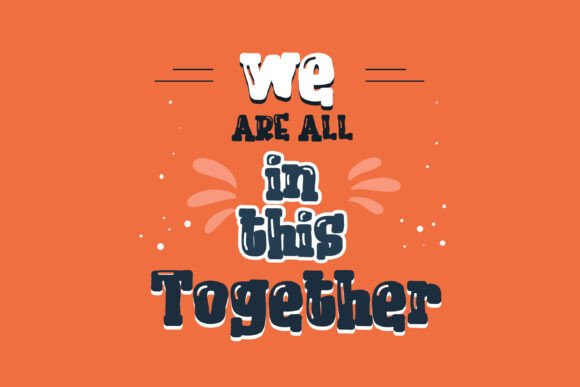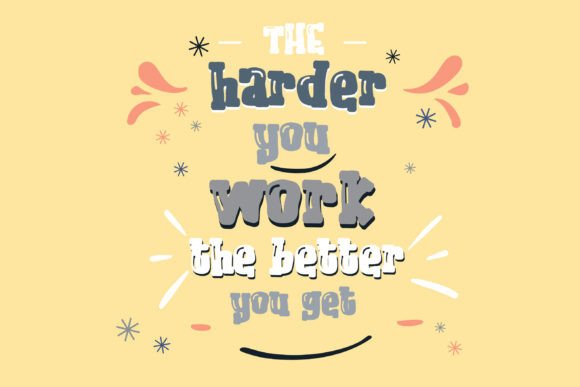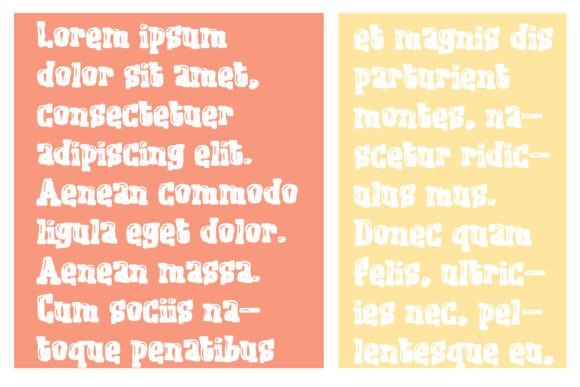
Bubonic Font
This hand-crafted font is a soft, rounded, crafty font with highlights throughout.Unhighlighted version included.A hand-crafted font is a font that is designed to look like it was written by hand. It is often used for invitations, greeting cards, and other items. Handwritten fonts can be either formal or informal, and they can be used for a variety of purposes.